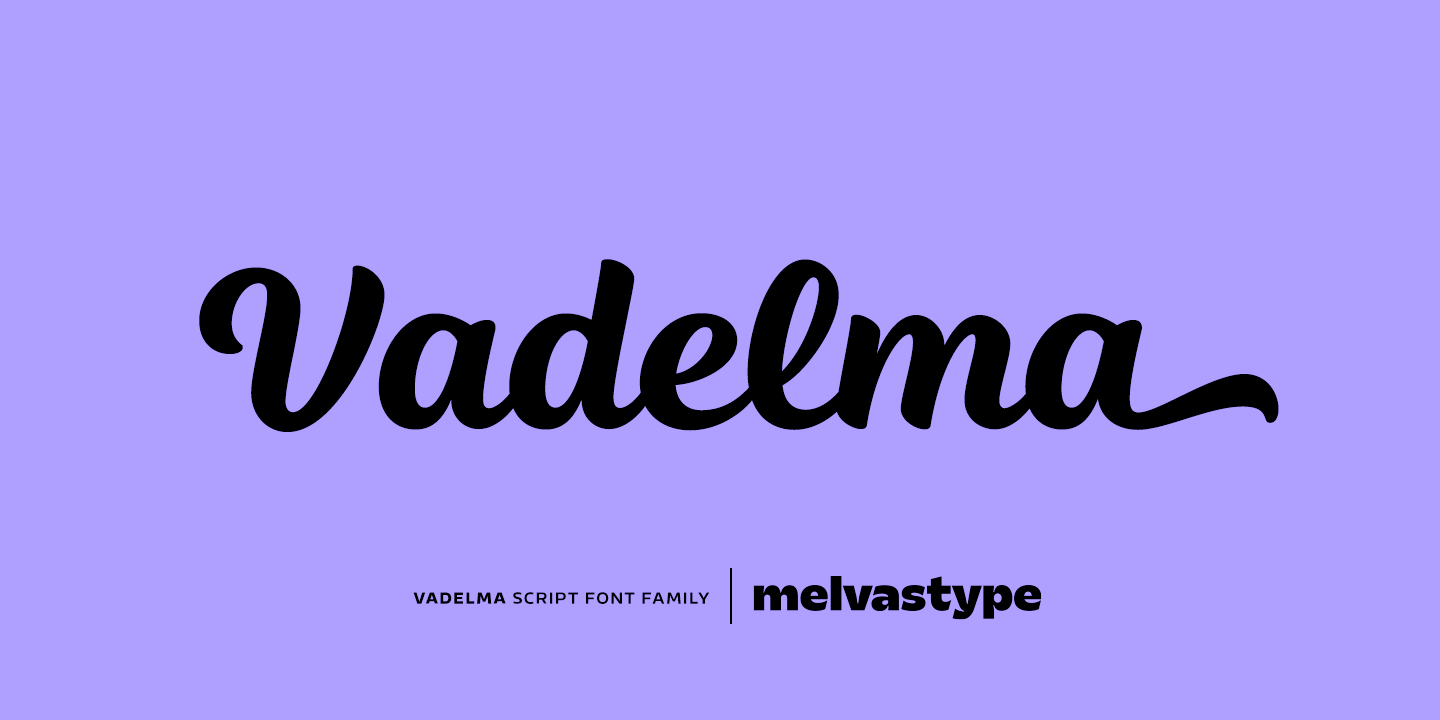
This organic display typeface is perfect for natural food brands, berry farms, organic cafes, farmers' markets, health food packaging, botanical illustrations, eco-friendly products, farm-to-table restaurants, and nature-inspired logo design.
Vadelma Font brings excitement to your design projects with its natural charm and berry-sweet personality. This delightful display font features soft, rounded letterforms that evoke the essence of fresh berries and natural goodness, making it perfect for brands celebrating organic living and wholesome products. The font's gentle curves and friendly appearance create immediate appetite appeal while conveying authenticity and natural quality.
The Vadelma Font family includes light, regular, and bold weights, providing designers with sweet options for creating memorable natural brand identities. Each weight maintains the font's signature organic character while offering different levels of visual sweetness for various food packaging and natural product applications.
Harvest the power of natural branding with Vadelma Font Free Download today. This wholesome typeface combines organic appeal with professional design quality, making it essential for natural food industry communications. Whether you're designing berry product packaging, creating organic cafe menus, or developing farm brand identities, this font delivers fresh results with its natural character and wholesome personality.
The organically inspired letterforms ensure consistent natural appeal across all touchpoints. Download Vadelma Font now and cultivate your brand garden with this nature-loving typography solution that captures the essence of fresh, organic living with authentic charm and berry-sweet appeal.